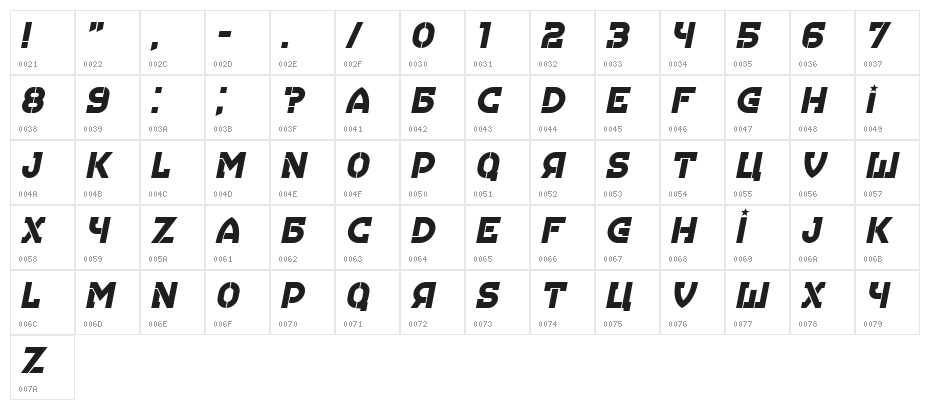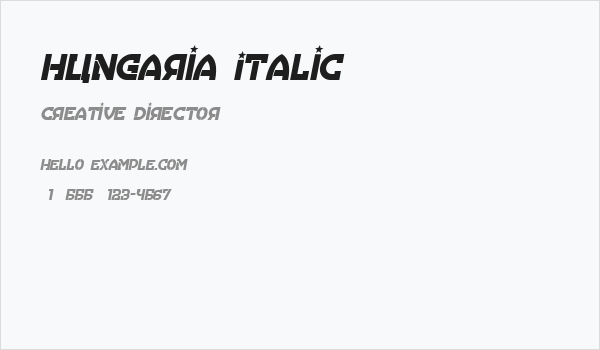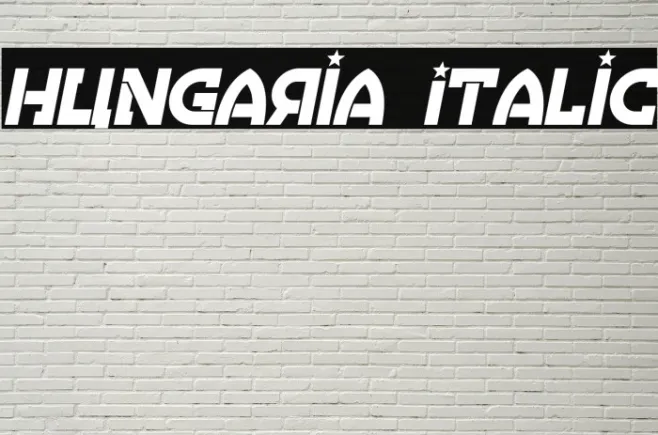
Hungaria Italic Font
Hungaria Italic Description
This font exhibits a bold and dynamic style with a futuristic and geometric design. The characters are constructed with sharp angles and distinct cuts, creating a sense of movement and energy. The uppercase and lowercase letters maintain a consistent style, with unique features such as star-shaped accents on certain characters. The numbers and special characters follow the same bold and angular aesthetic, ensuring uniformity across all glyphs. This font's striking appearance makes it ideal for projects that require a modern and impactful look.
| Overall Style | Futuristic, Dynamic |
| Proposed Projects | Ideal for branding, posters, video game graphics, and any project requiring a modern, impactful typeface. |